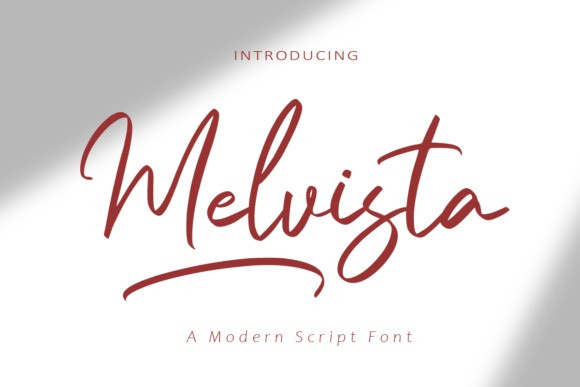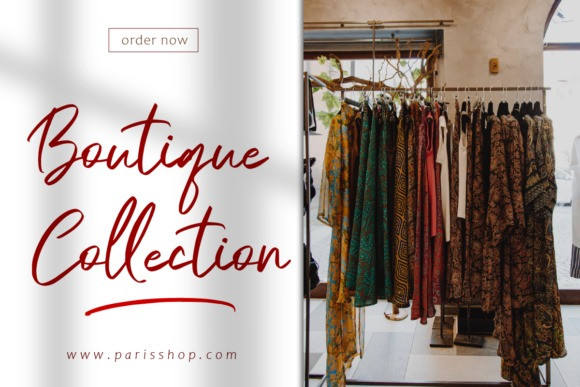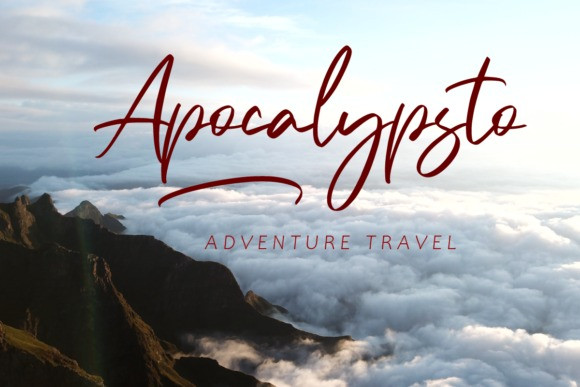
Melvista Font
Melvista is a stylish and graceful script font. Fall for its ravishing style and use it to create gorgeous wedding invitations, beautiful stationary art, eye-catching social media posts, and much more!